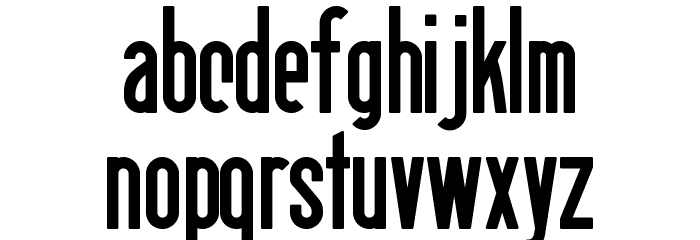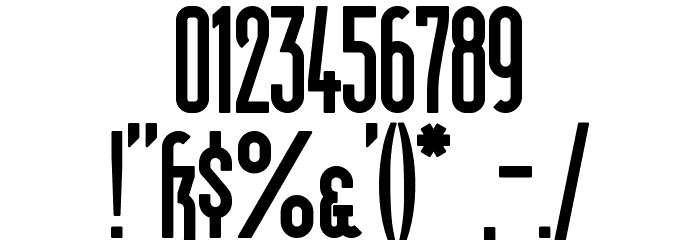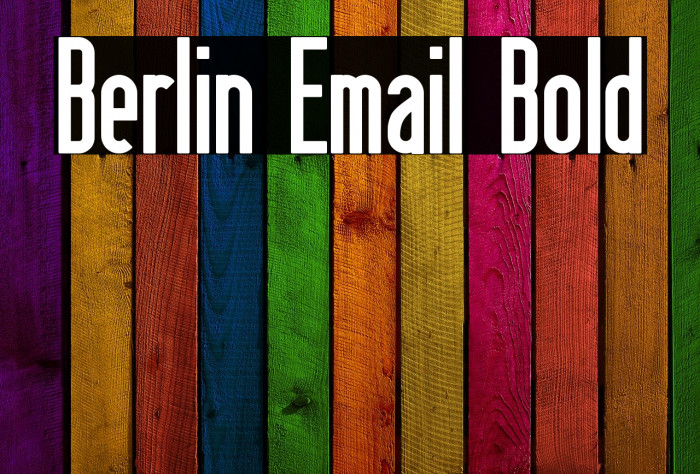
Berlin Email Bold Font
This font features a bold and impactful design with tall, narrow characters that convey a sense of strength and modernity. The uppercase letters are particularly striking, with a uniform height that creates a cohesive look. The lowercase letters maintain the same narrow structure, ensuring consistency across text. Numbers and special characters are designed to match the boldness of the alphabet, making them stand out effectively. The overall appearance is clean and geometric, with minimal contrast in stroke thickness, which adds to its contemporary feel.
A bold, narrow font with a modern and impactful design.
- Proposed Projects: Ideal for headlines, posters, branding, and any project requiring a strong visual impact.